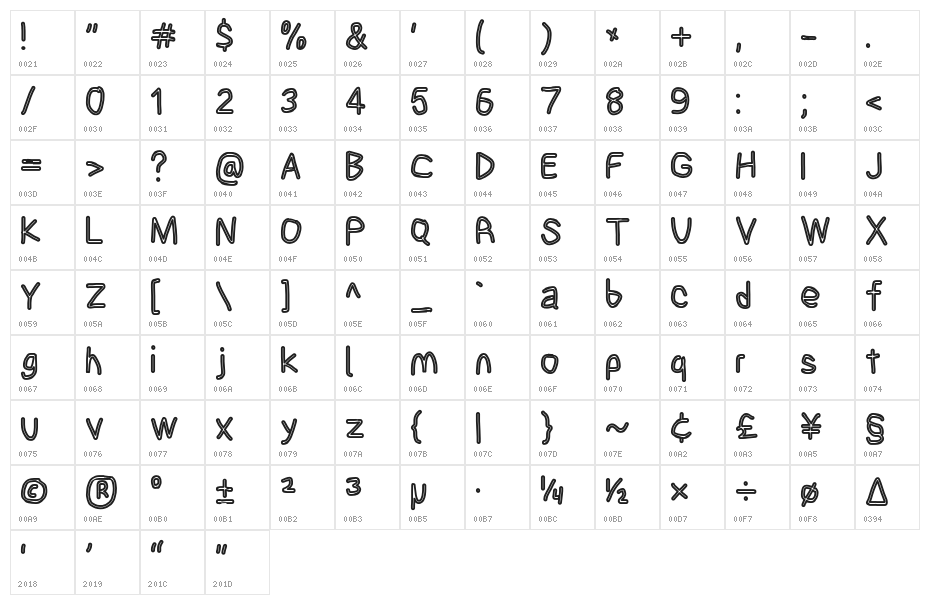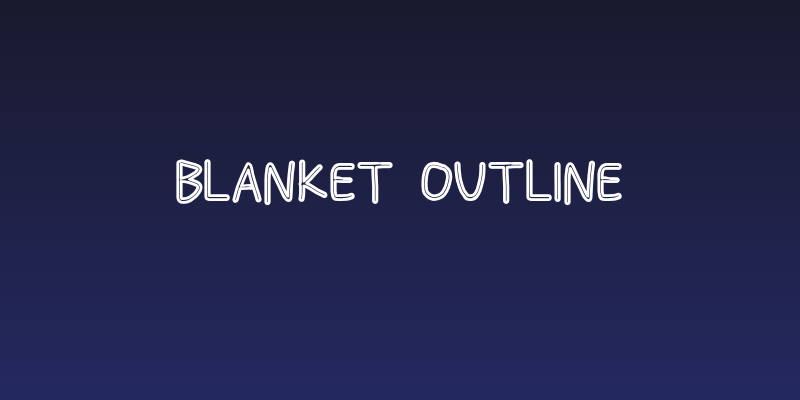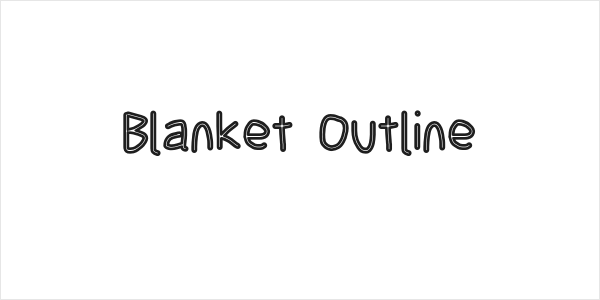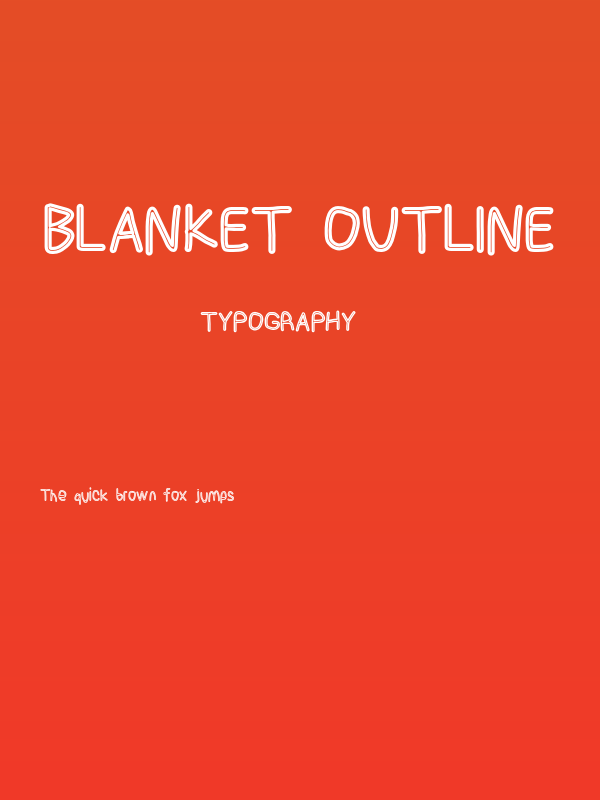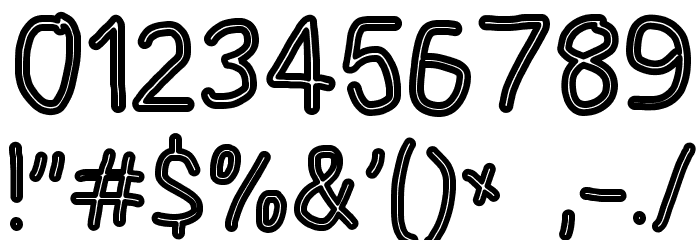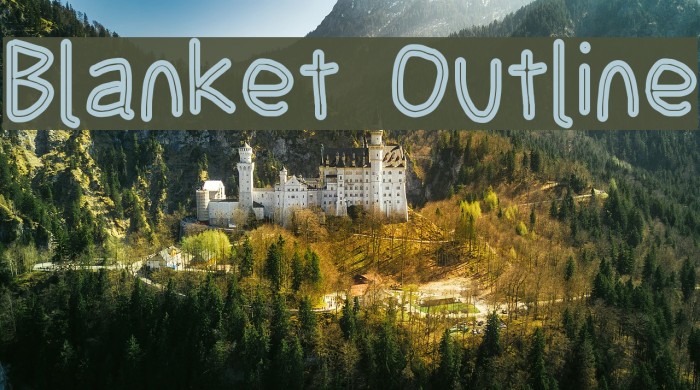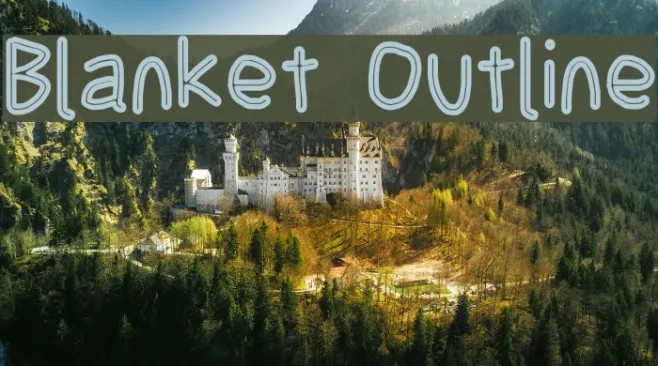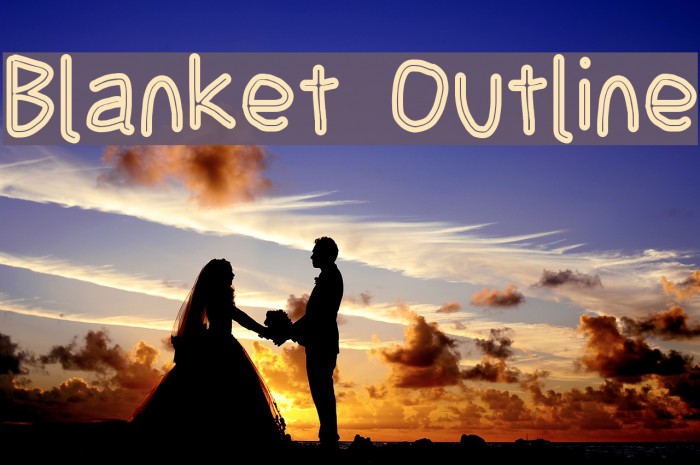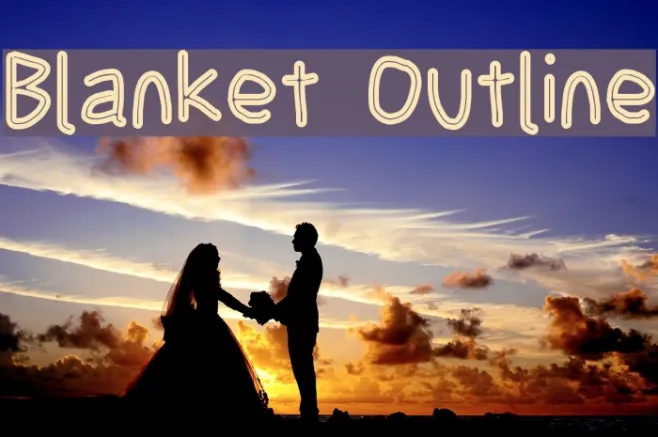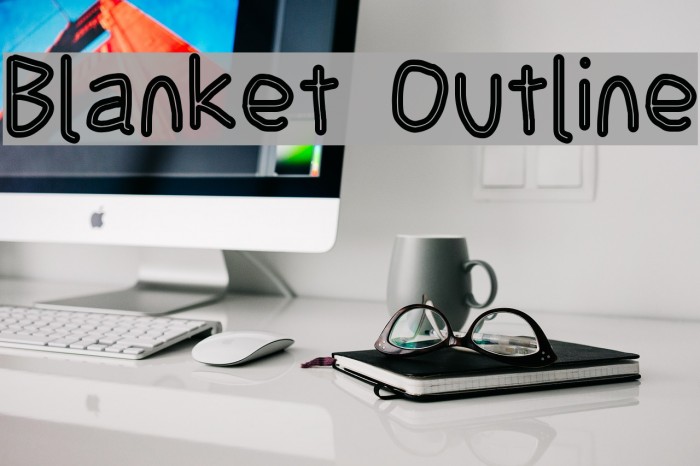
Blanket Outline Font
Blanket Outline Description
This font features a playful and bold outline style, characterized by its thick, rounded edges and hollow centers. The uppercase and lowercase letters maintain a consistent width, giving it a uniform appearance. The numerals and special characters follow the same design, ensuring cohesiveness across all glyphs. Its informal and friendly look makes it suitable for projects that require a touch of whimsy and creativity. The font's design is approachable and easy to read, making it ideal for children's materials, casual branding, and playful design elements.
| Proposed Projects | Ideal for children's books, playful branding, posters, and creative design projects. |